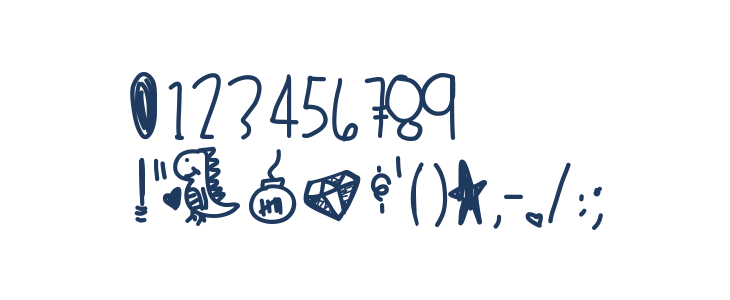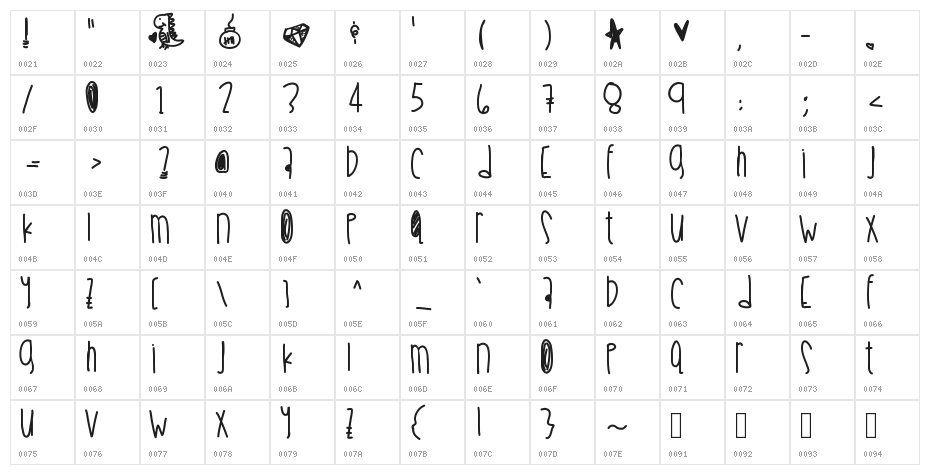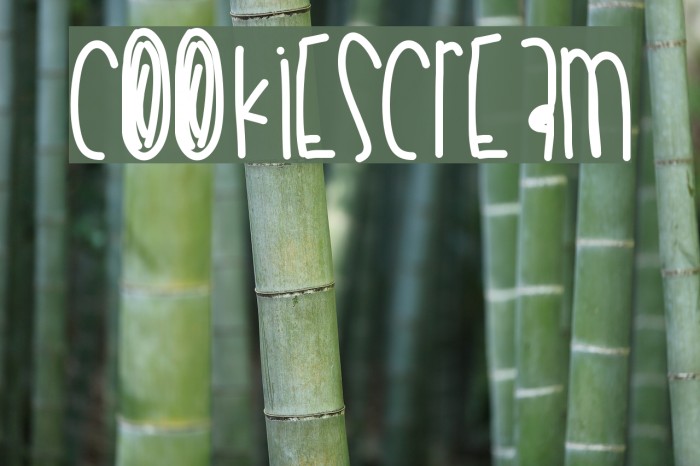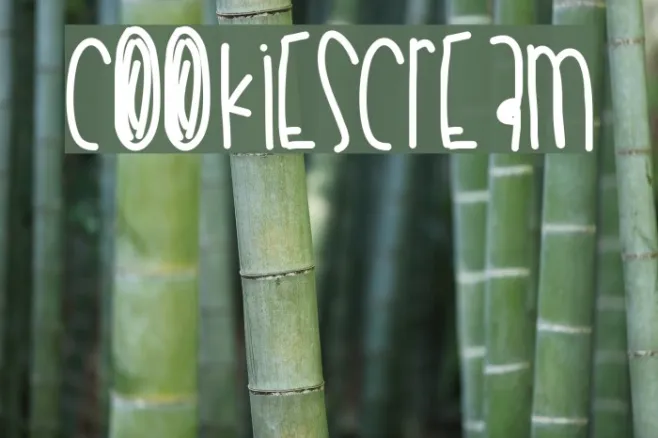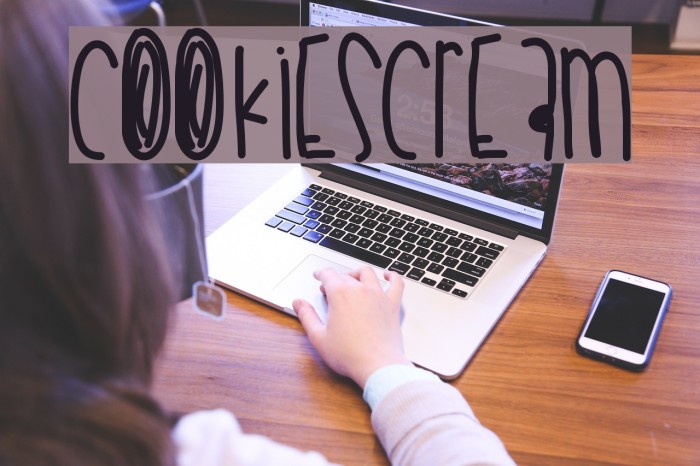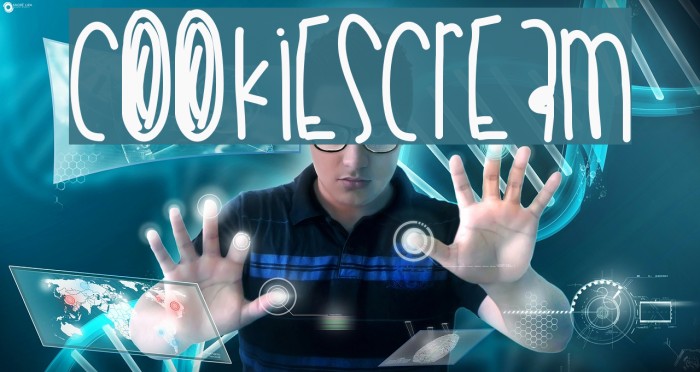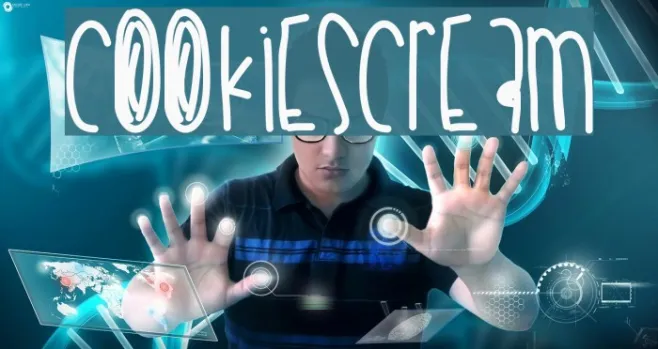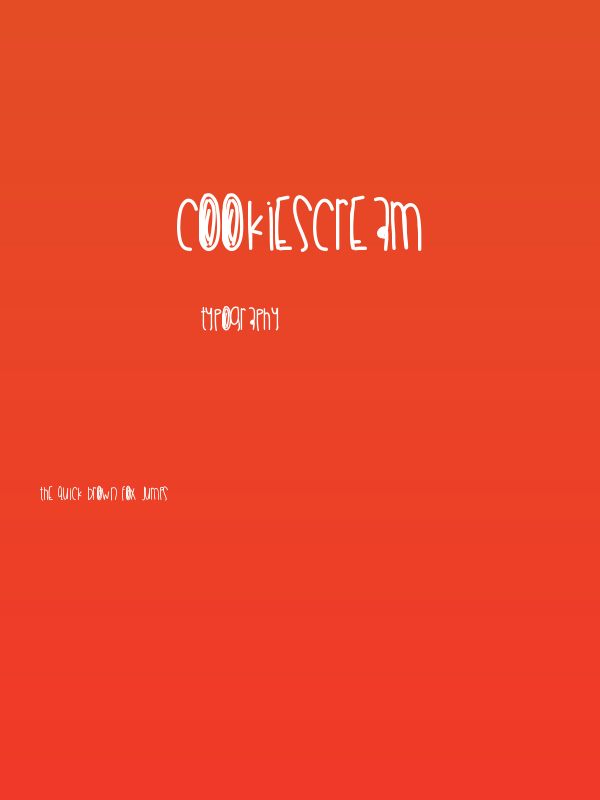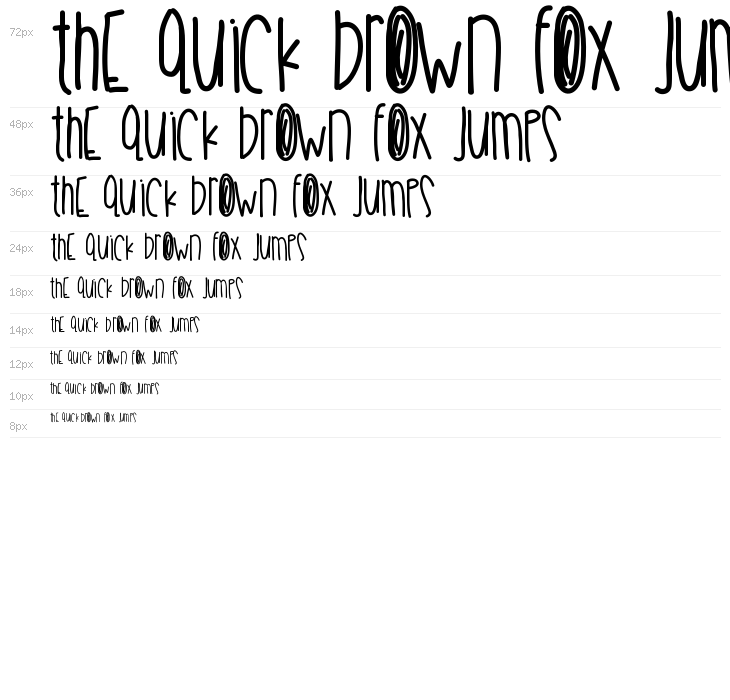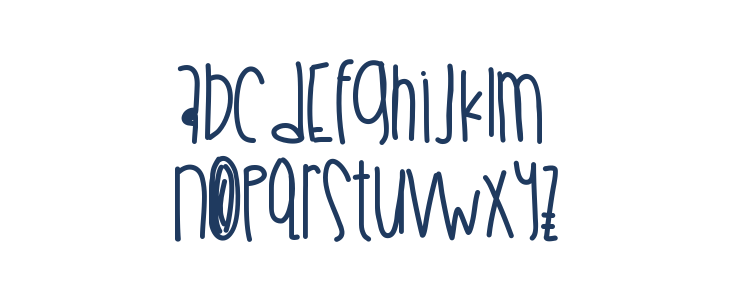
Cookiescream Font
Cookiescream Description
This playful and whimsical font features tall, narrow letters with a hand-drawn aesthetic. The characters have a casual, informal style, with slightly uneven lines that add to its charm. The uppercase and lowercase letters maintain a consistent height, creating a cohesive look. Numbers and special characters are included, each with a unique flair that complements the overall design. The font's quirky nature makes it ideal for projects that require a fun and approachable feel.